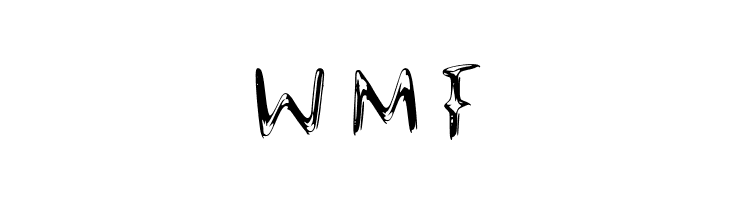
A bold, brushstroke font with dynamic and expressive characters.
A playful handwritten font with smooth, rounded edges and a casual style.
A playful, casual handwritten font with smooth, flowing lines and rounded edges.
( Fonts by Tereza Cenic )
A bold, geometric font with a digital, pixelated style.
( Fonts by Tereza Cenic )
A bold, geometric font with a digital, pixelated style.
A bold, condensed font with high contrast and elongated characters.
( Fonts by Graphix Line Studio )
A casual, handwritten font with smooth, flowing lines.
A playful, handwritten font with tall, narrow letters and a casual style.
An elegant script font with flowing, ornate letters and intricate swashes.